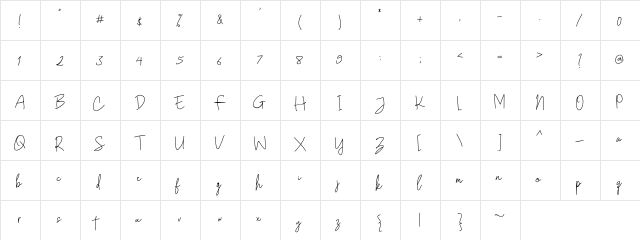
Gunung Pring Regular
Design Context for Gunung Pring Typeface
Gunung Pring is a composed and adaptable typeface that performs quietly and consistently across a wide range of design contexts.